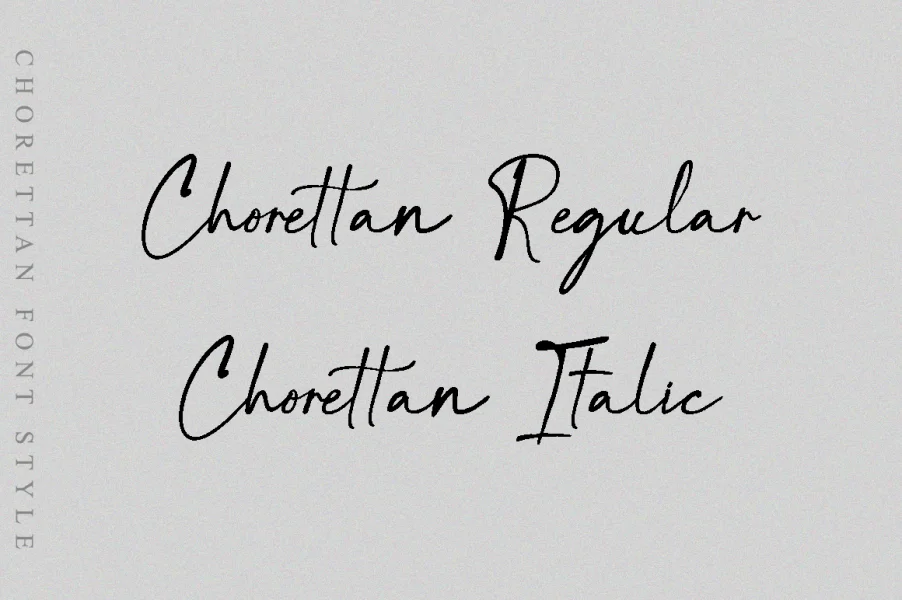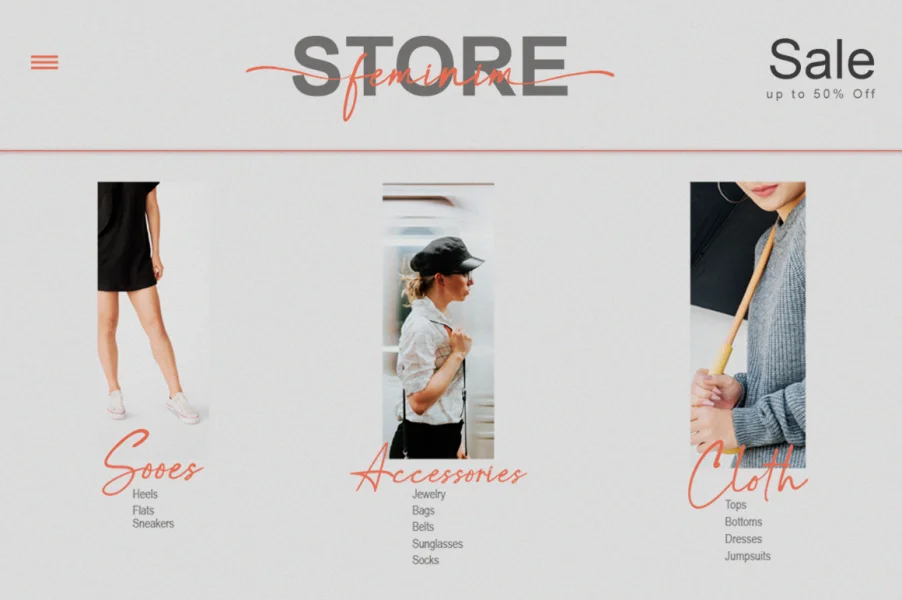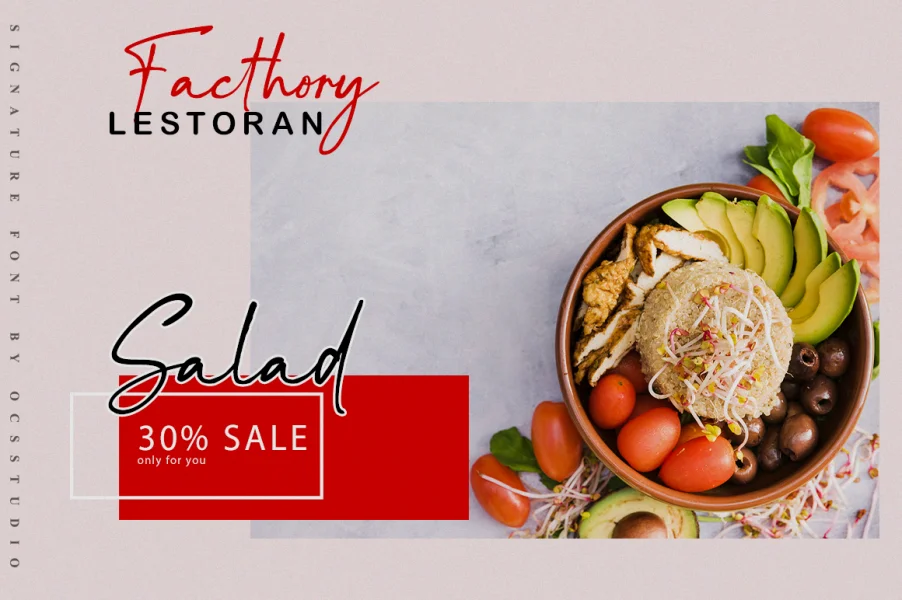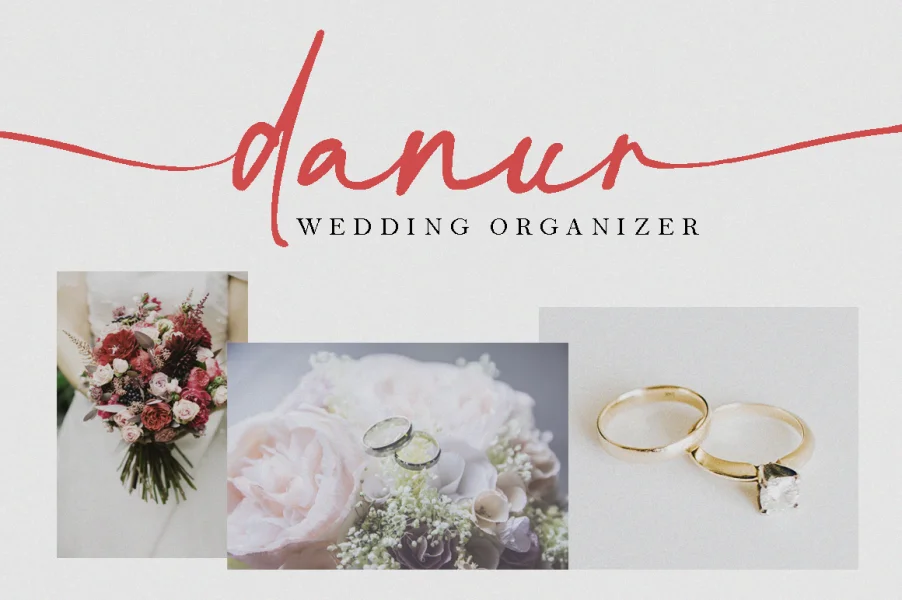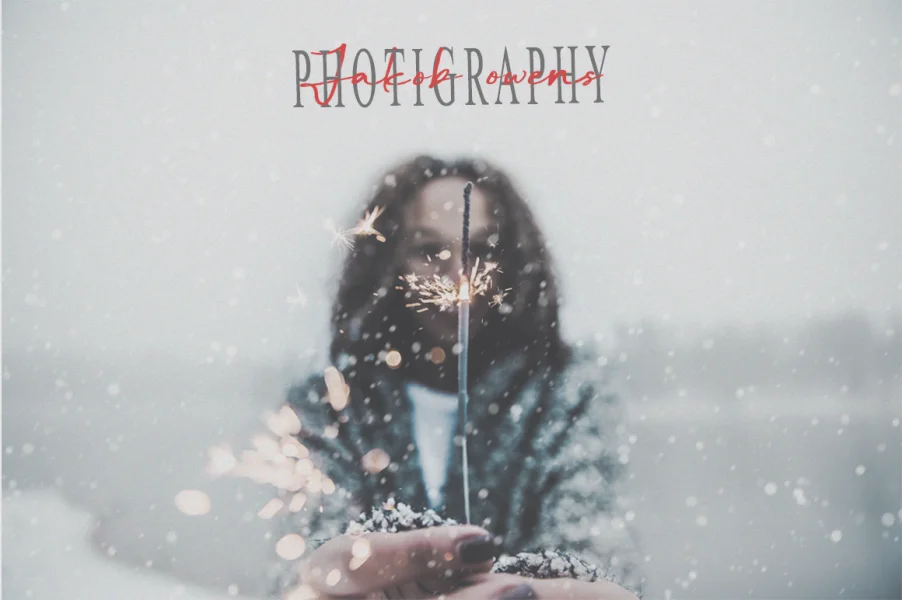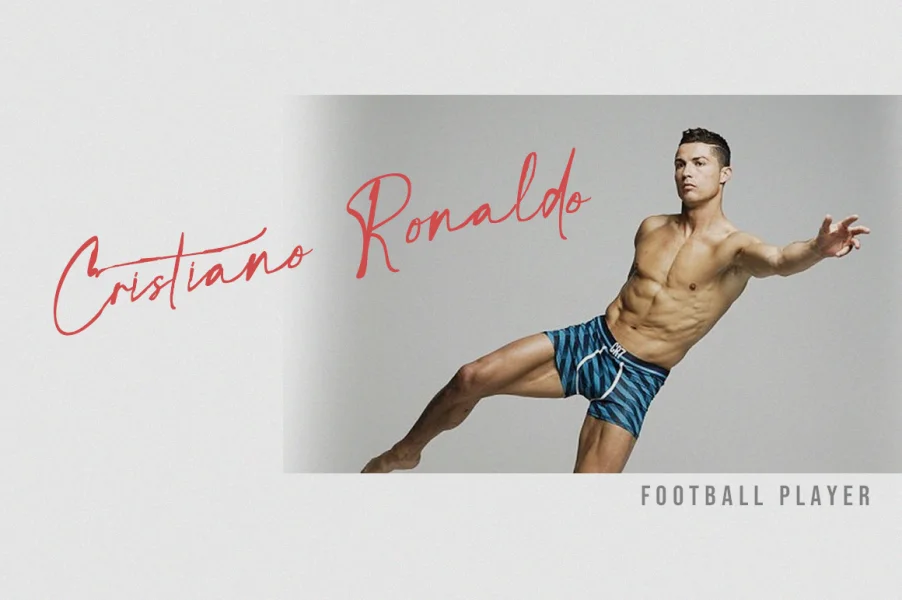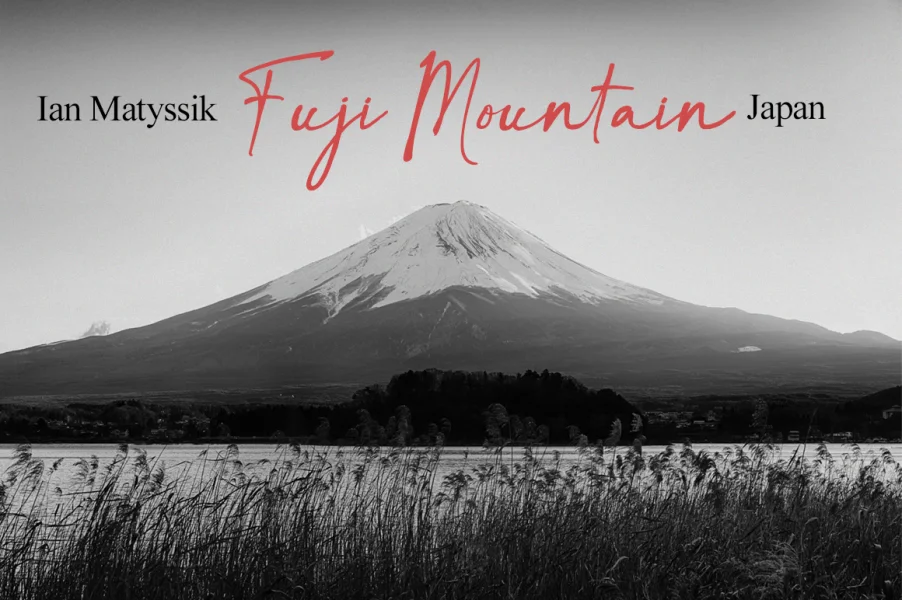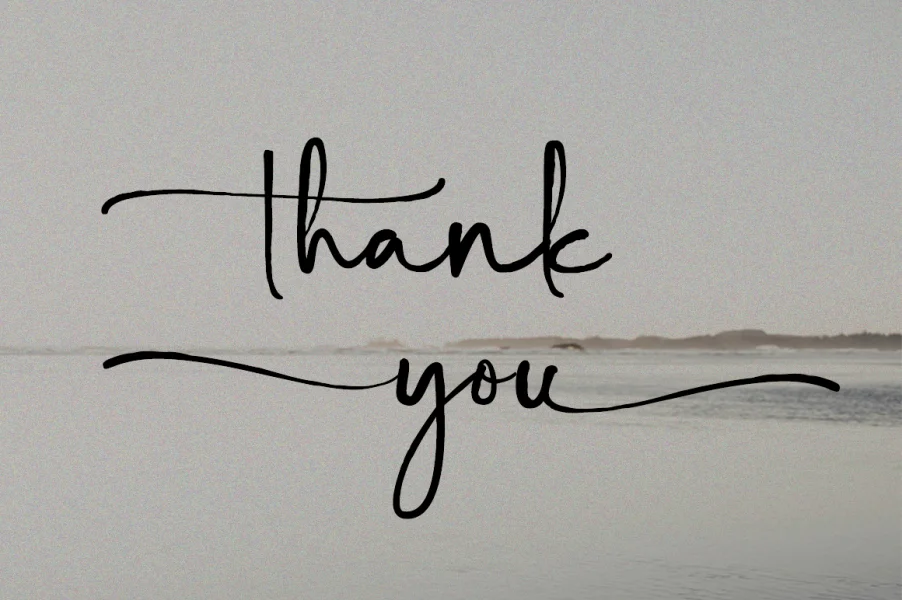
This elegant chorettan font signature is made with a hand stroke. This is perfect for branding, wedding invitations, cards, social media, or maybe for your logo products, and also websites. Chorettan fonts are equipped with two regular fonts and italic fonts so you can choose between the two